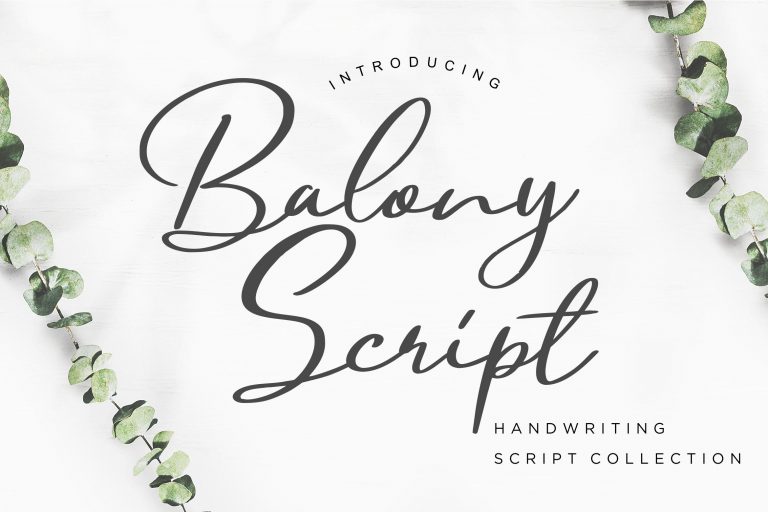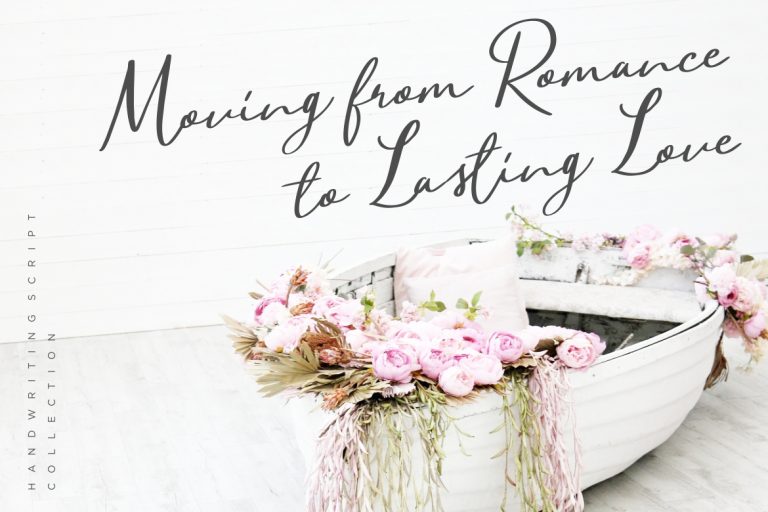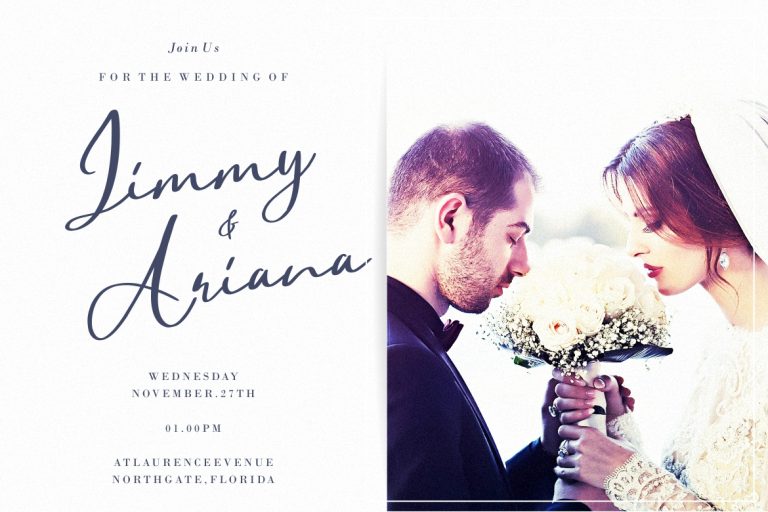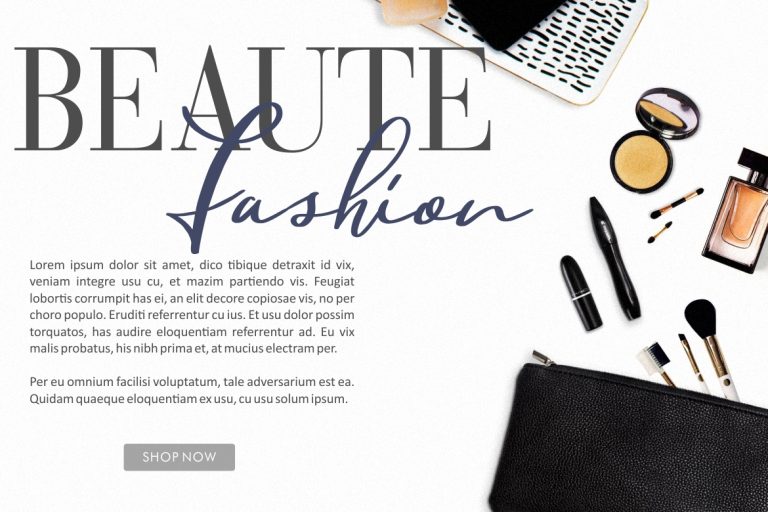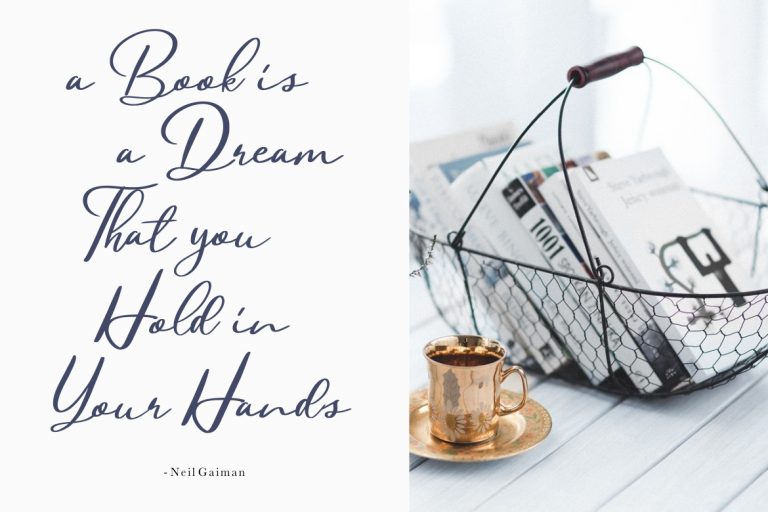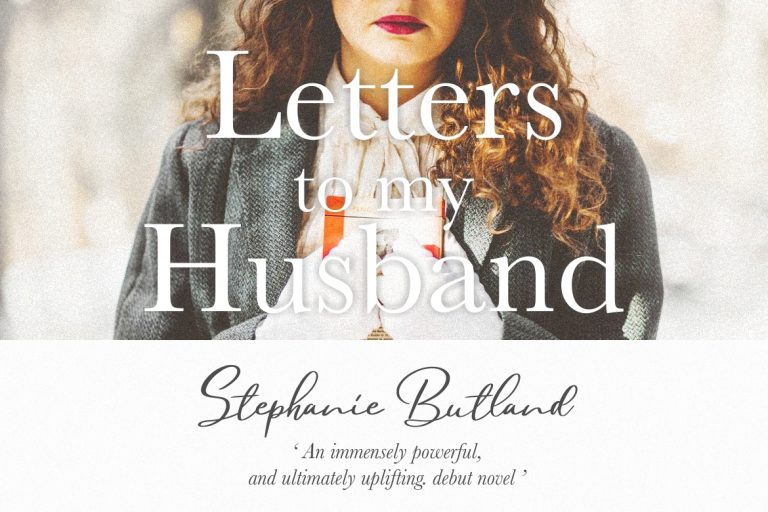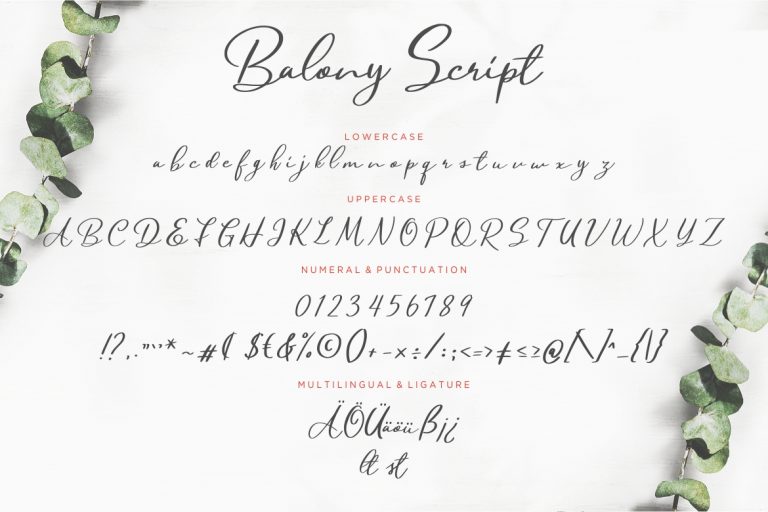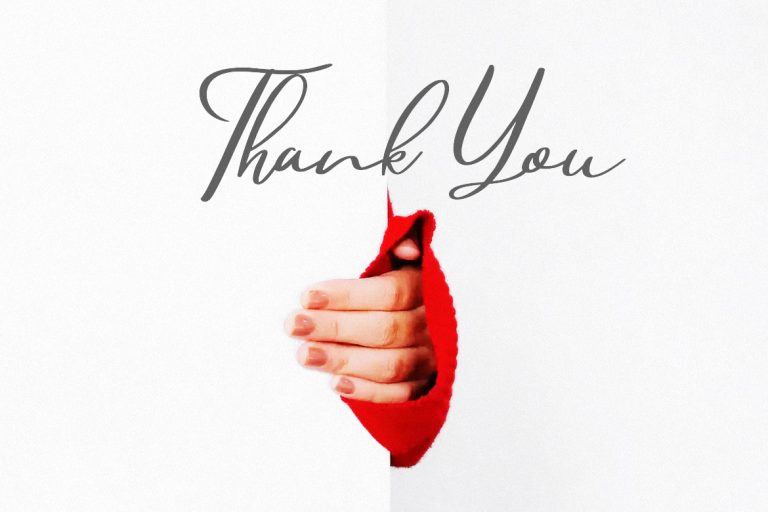
Balony Script is one of our handwritten collection script font with natural movement and classy style.
Balony Script is perfect for branding projects, logo, wedding designs, social media posts, advertisements, product packaging, product designs, label, photography, watermark, invitation, stationery and any projects that need handwriting taste.
- Standard glyphs
- Ligature
- Fonts include multilingual support for; ä ö ü Ä Ö Ü ß ¿ ¡
Balony Script Handwriting